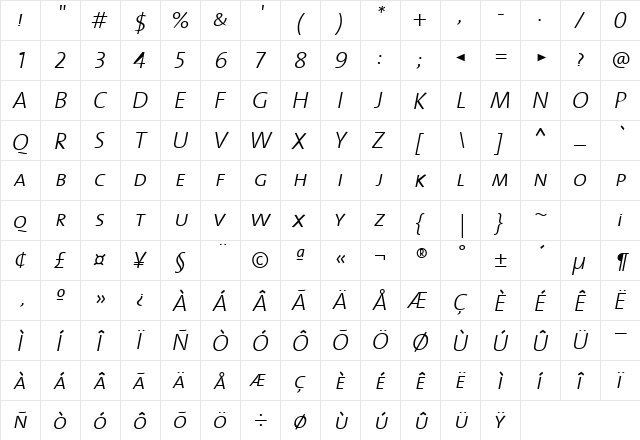
TheSansLight-CapsItalic Regular Font Preview
Design Context for TheSansLight-CapsItalic Typeface
TheSansLight-CapsItalic takes a measured approach to typography — its balanced proportions and neutral character make it a reliable workhorse for both digital and print work. The dynamic lean of this cut emphasises speed and emphasis in any layout. Its slender proportions lend an understated elegance to any composition.